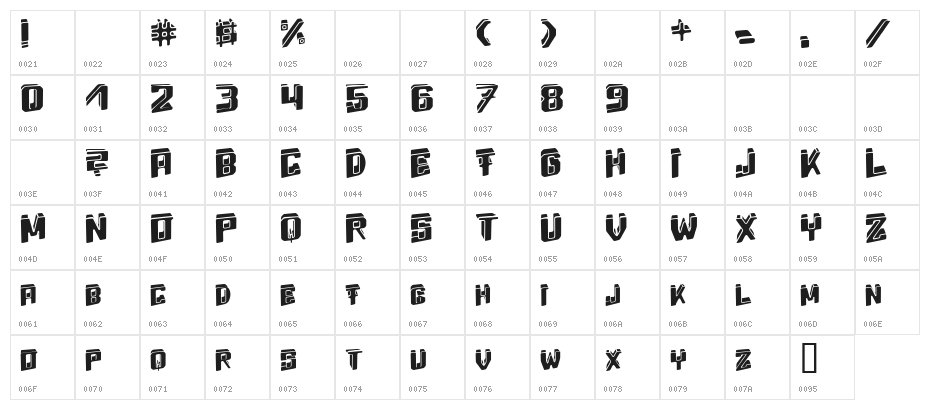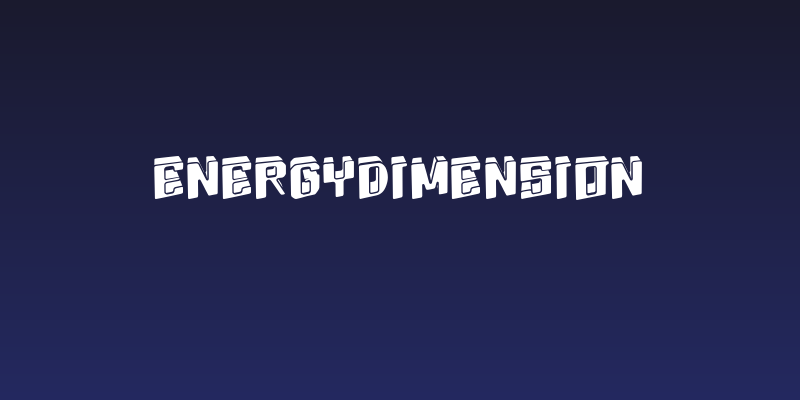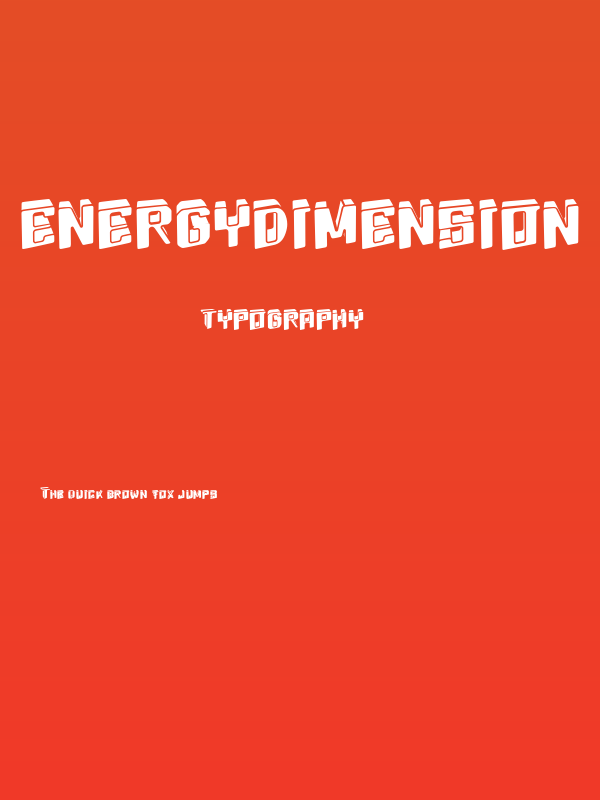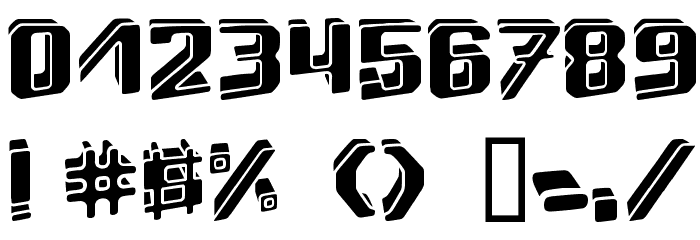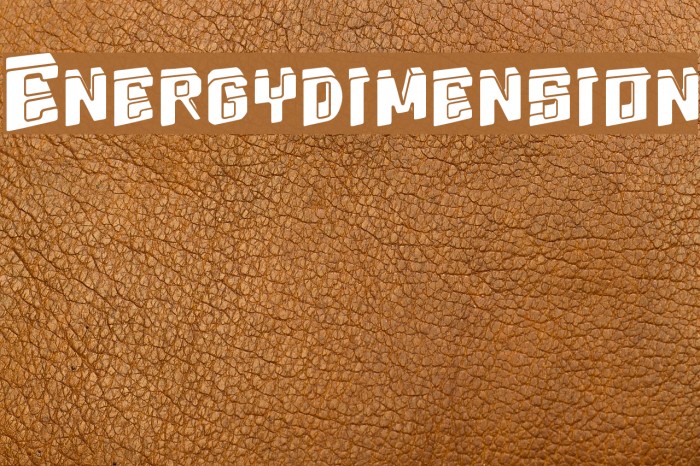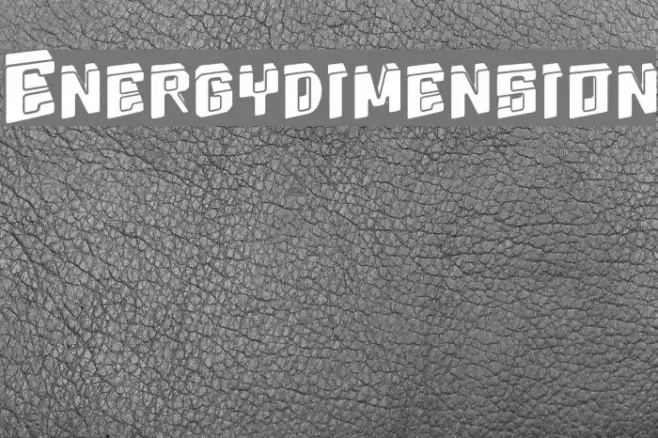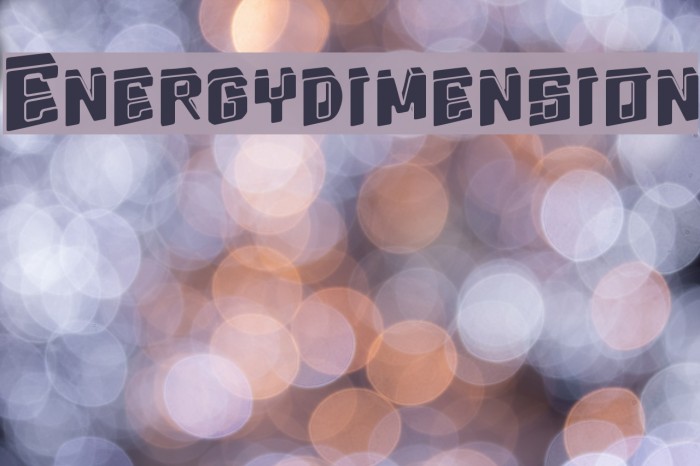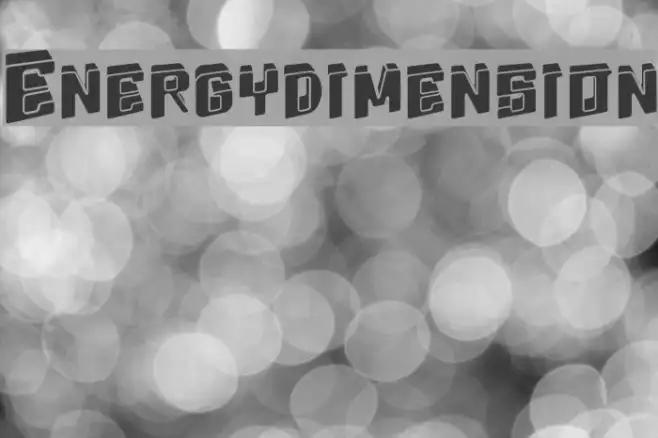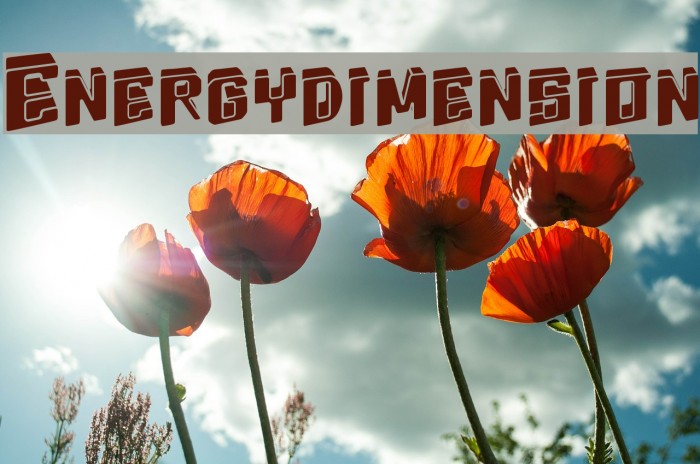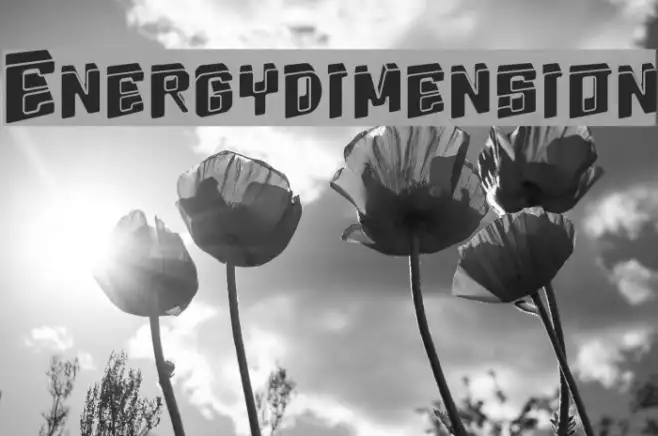
Energydimension Font
Energydimension Description
This font features a bold, dynamic design with a futuristic and industrial feel. The characters are constructed with thick, angular strokes, giving them a strong presence. The design incorporates a stencil-like appearance with cutouts and geometric shapes, adding a sense of movement and energy. The uppercase letters are particularly striking, with a consistent height and width that create a uniform look. The numbers and special characters maintain the same bold style, ensuring cohesion across all elements. This font is ideal for projects that require a modern, edgy aesthetic.
| Proposed Projects | Ideal for branding, posters, video game graphics, and sci-fi themed designs. |